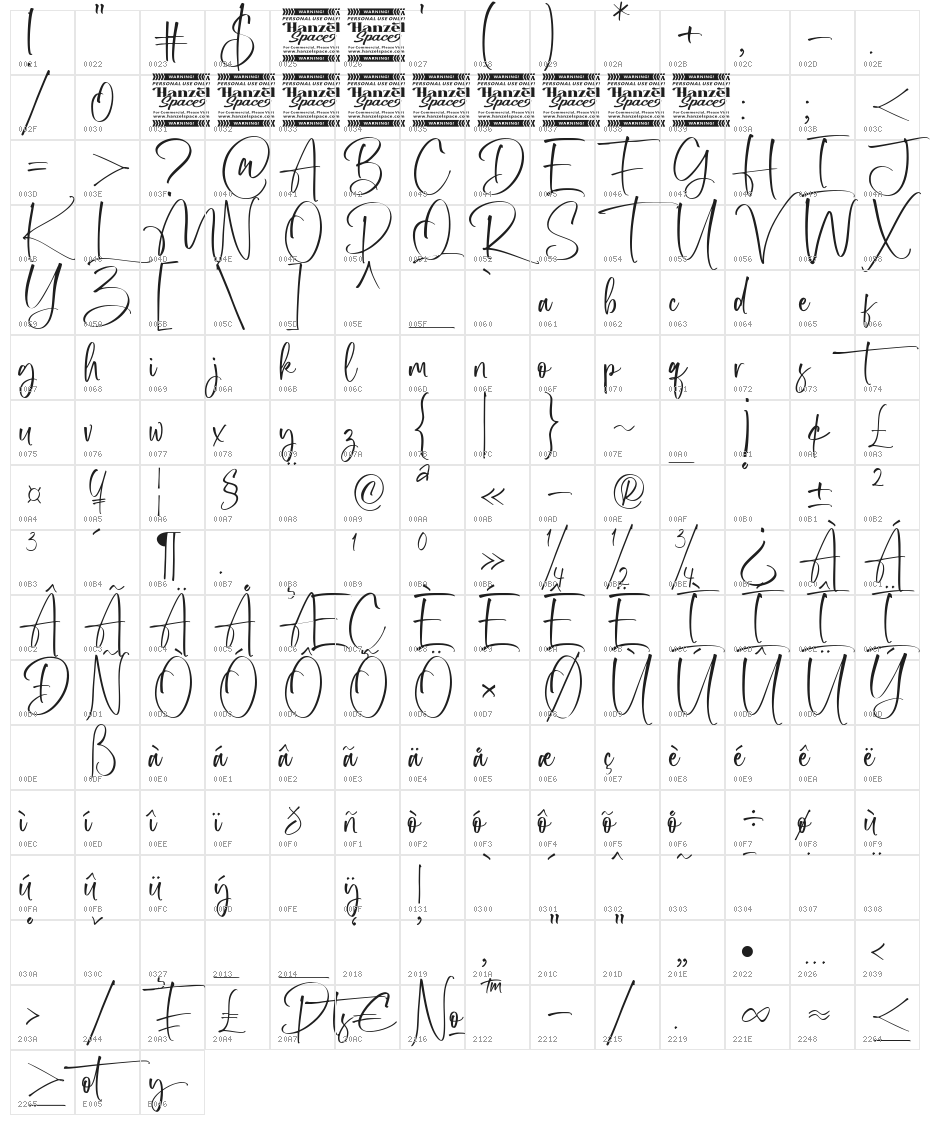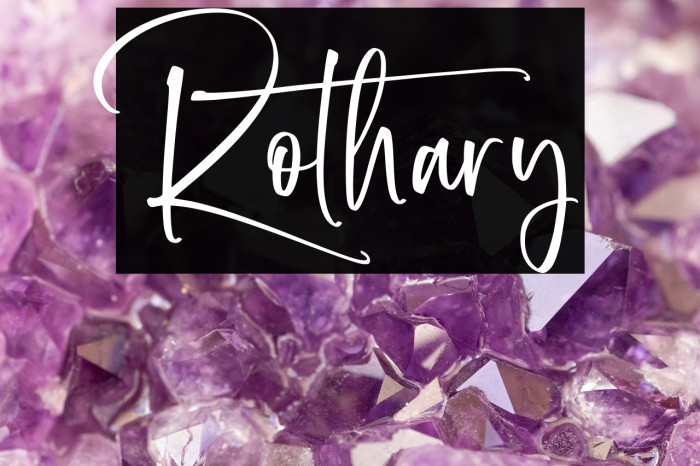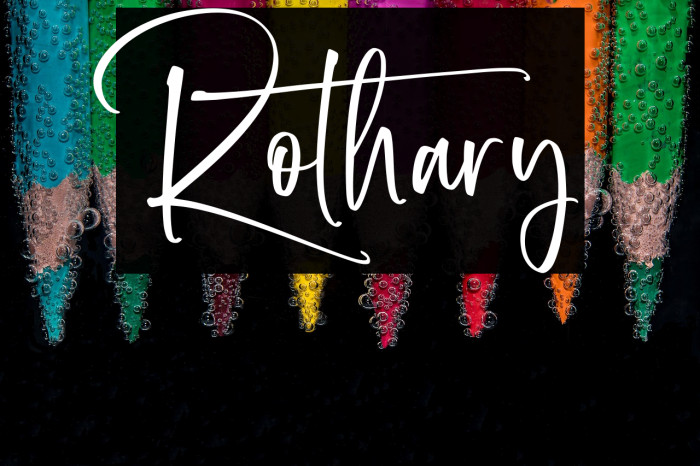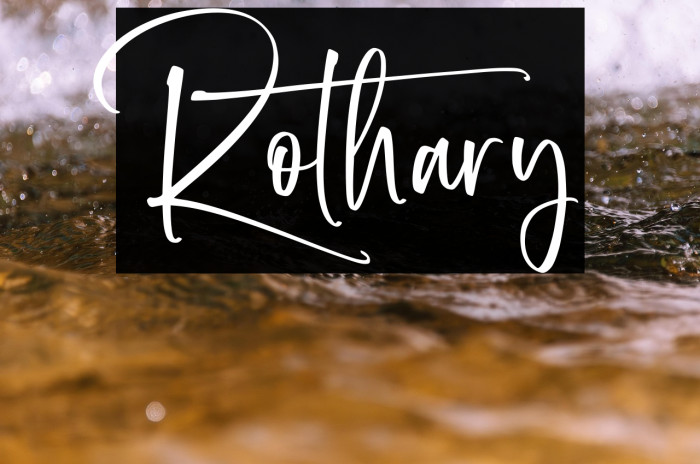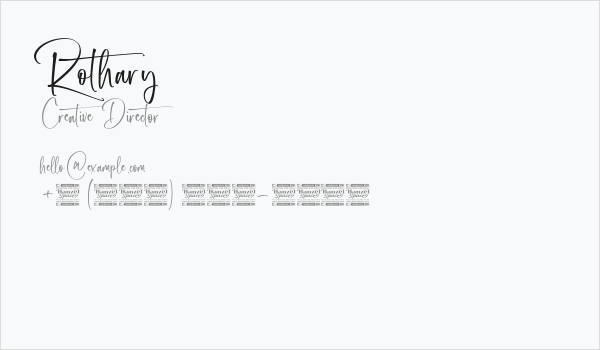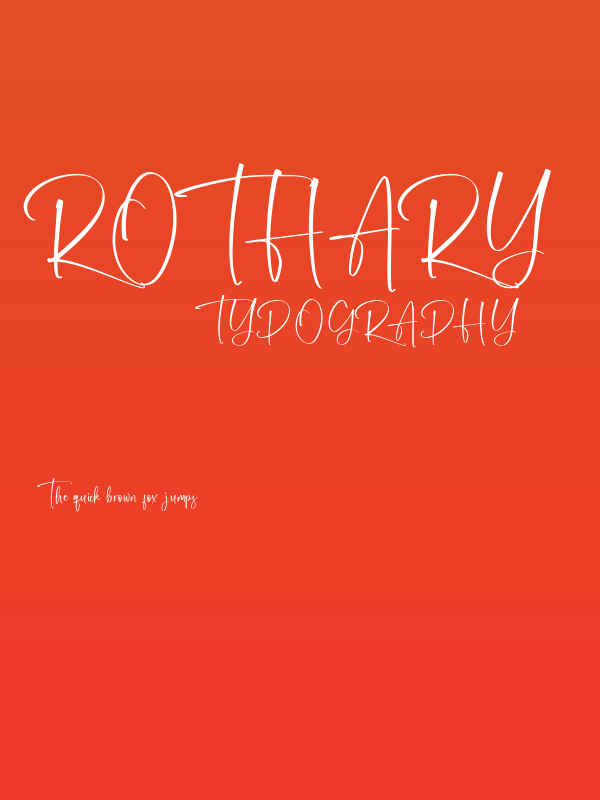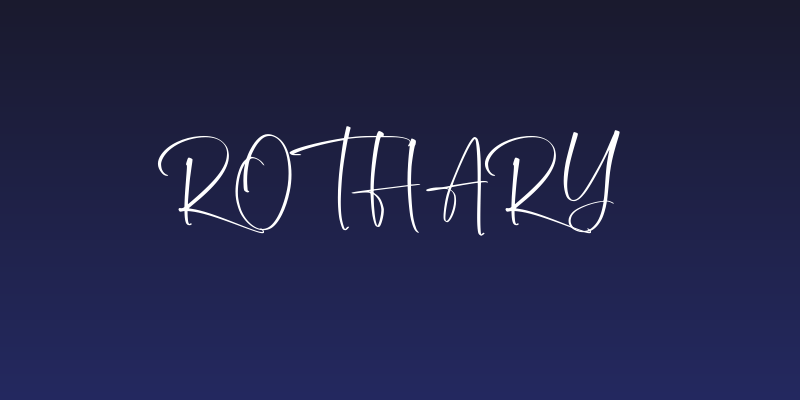
Rothary Font
Rothary Description
This font features a dynamic and expressive handwritten style, characterized by its fluid and flowing letterforms. The uppercase letters are elegantly elongated, while the lowercase letters maintain a bold and confident appearance. The font includes a variety of special characters, enhancing its versatility for creative projects. Its playful yet sophisticated design makes it suitable for a range of applications, from invitations to branding materials. The contrast between the thick and thin strokes adds a touch of elegance, while the overall style remains approachable and modern.
| Use Case | Logos, Headlines, Invitations |
| Proposed Projects | Ideal for wedding invitations, branding, social media graphics, and personal stationery. |